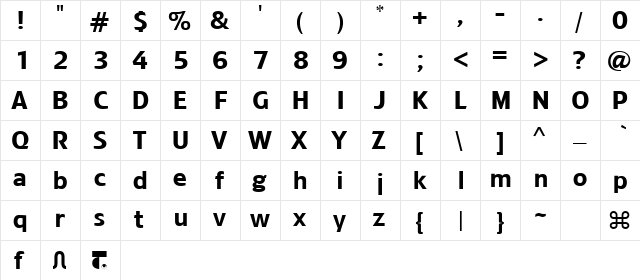
Design Context for Treacyfaces Typeface
Treacyfaces takes a measured approach to typography — its balanced proportions and neutral character make it a reliable workhorse for both digital and print work.